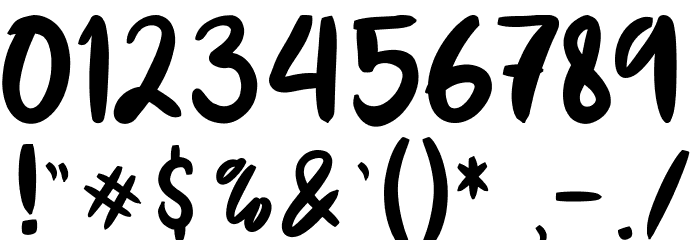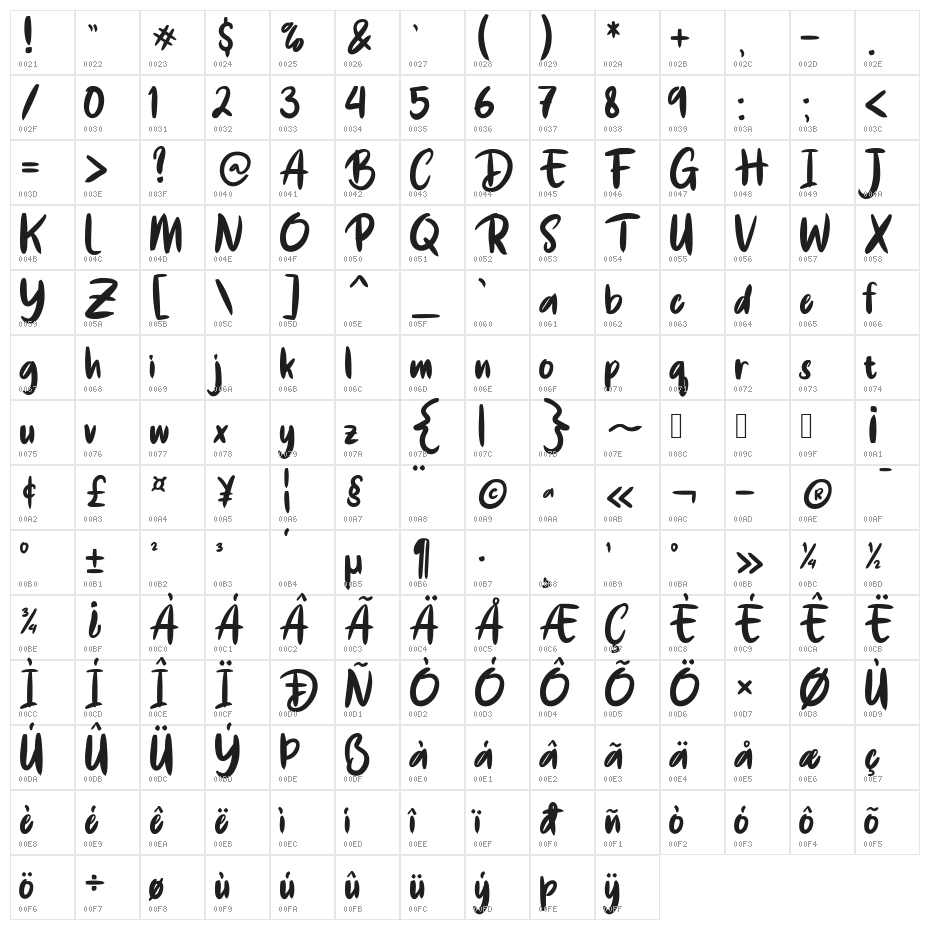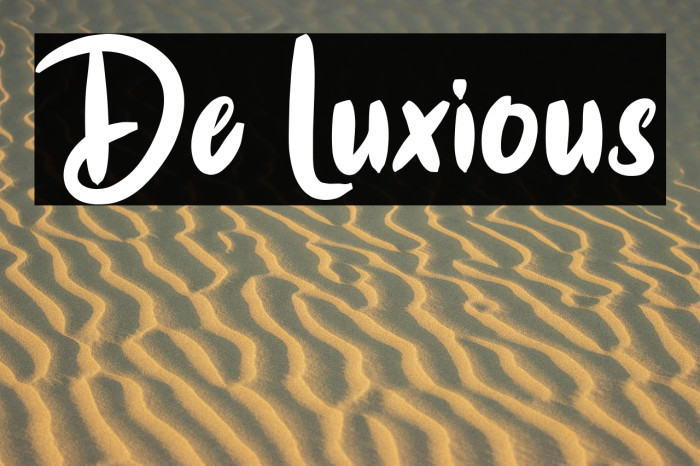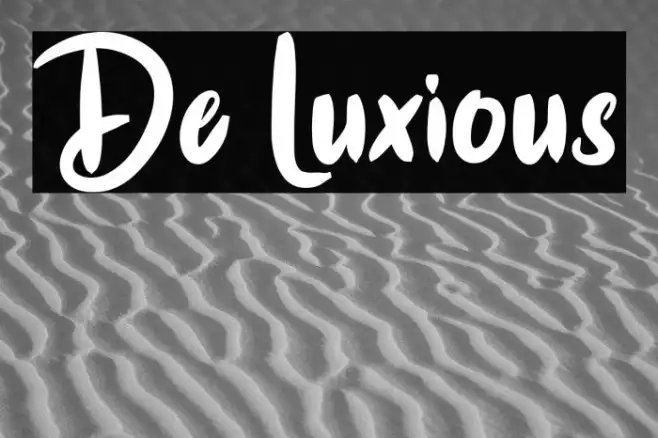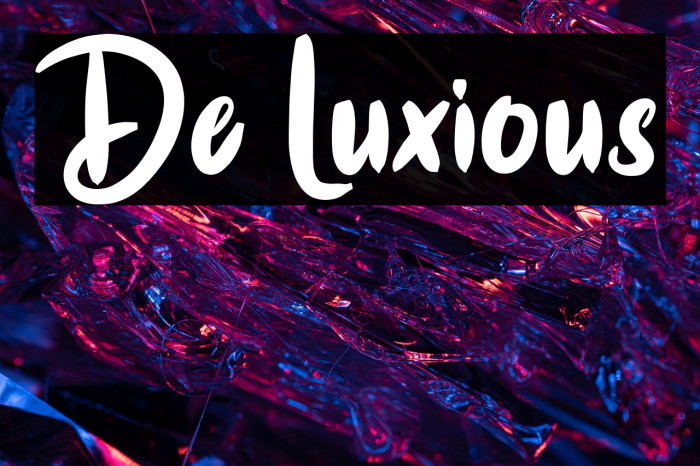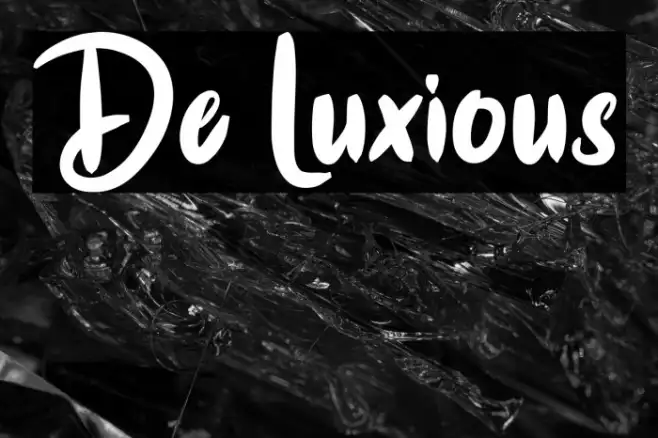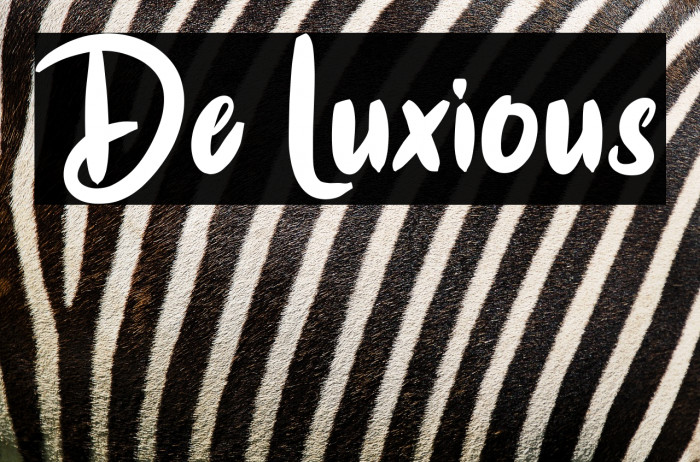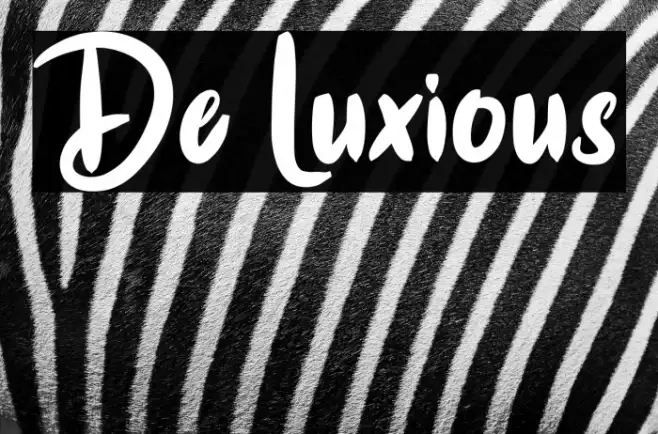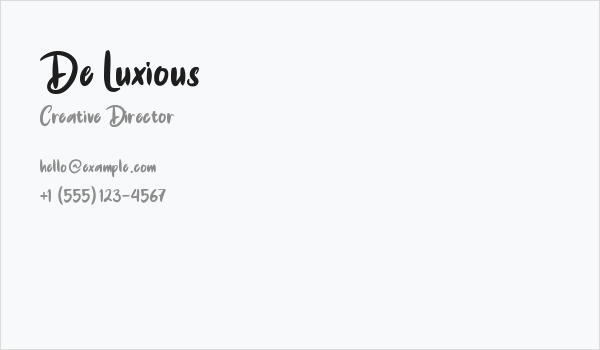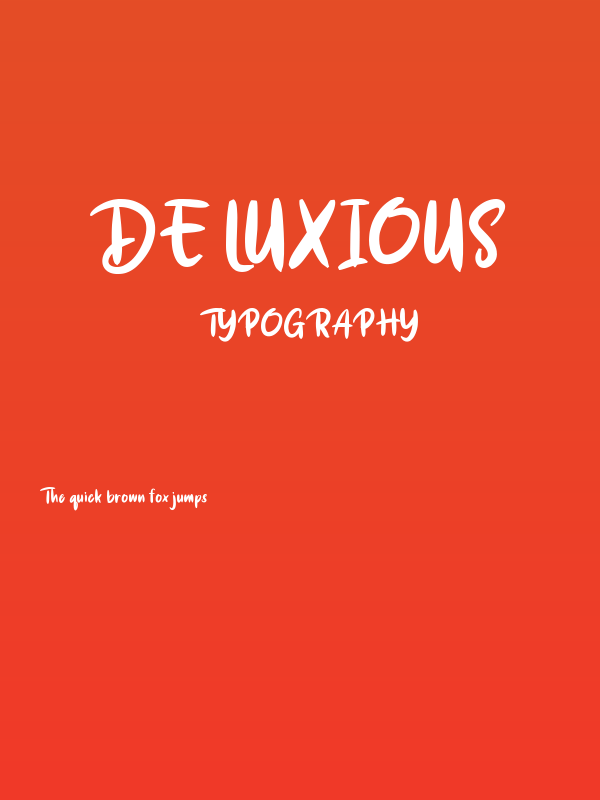
De Luxious Font
De Luxious Description
This font features a bold and expressive handwritten style, characterized by its fluid and dynamic strokes. The letters are slightly slanted, giving a sense of movement and energy. The uppercase and lowercase letters maintain a consistent style, with rounded edges and a playful appearance. The numerals are equally bold, matching the overall aesthetic of the alphabet. Special characters are well-integrated, maintaining the same lively and bold characteristics. This font is ideal for projects that require a personal and informal touch, such as greeting cards, posters, or social media graphics.
| Proposed Projects | Ideal for greeting cards, posters, social media graphics, and any project needing a personal touch. |